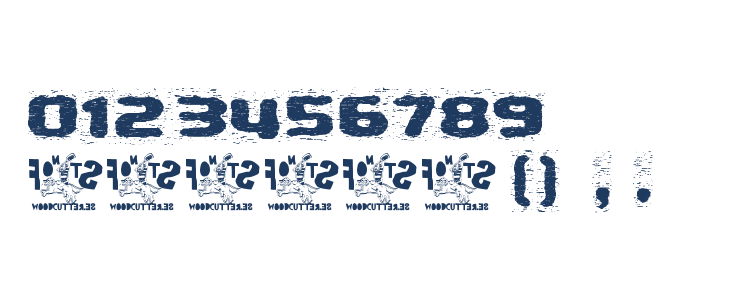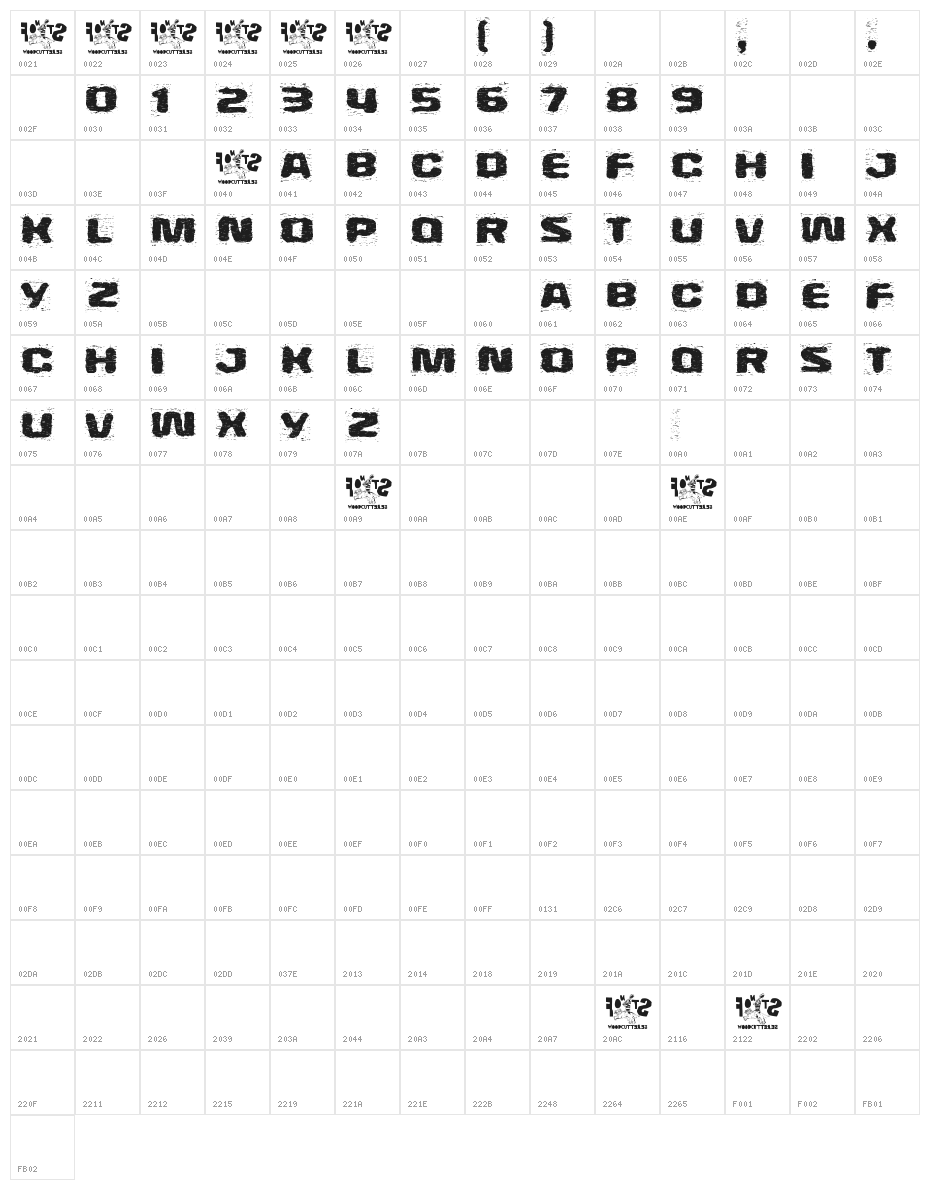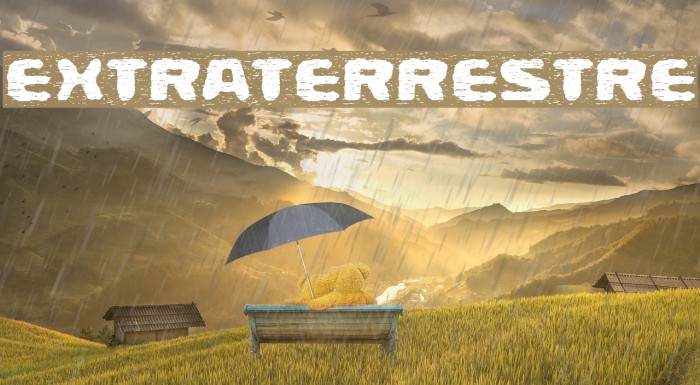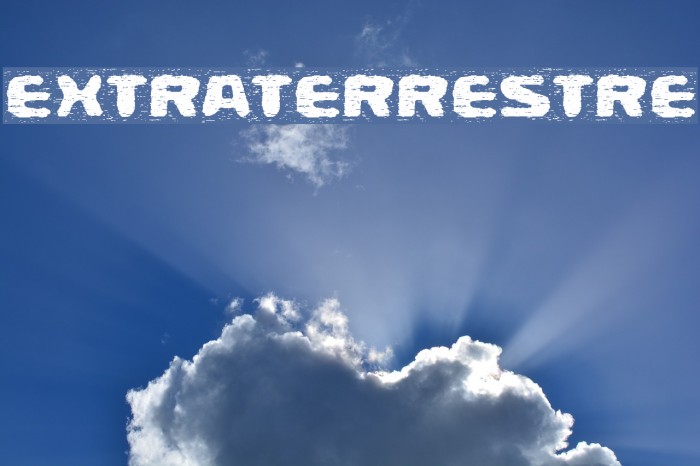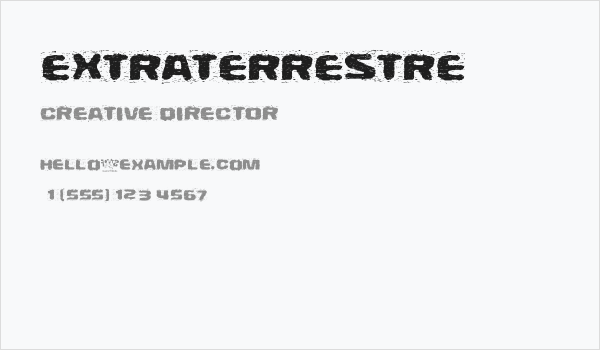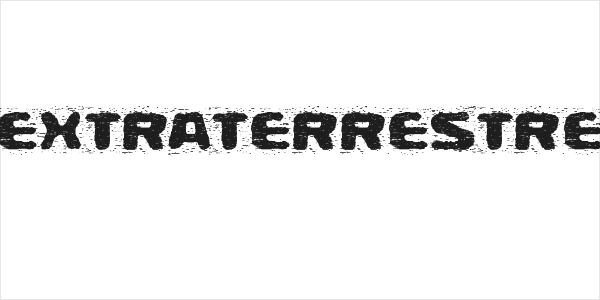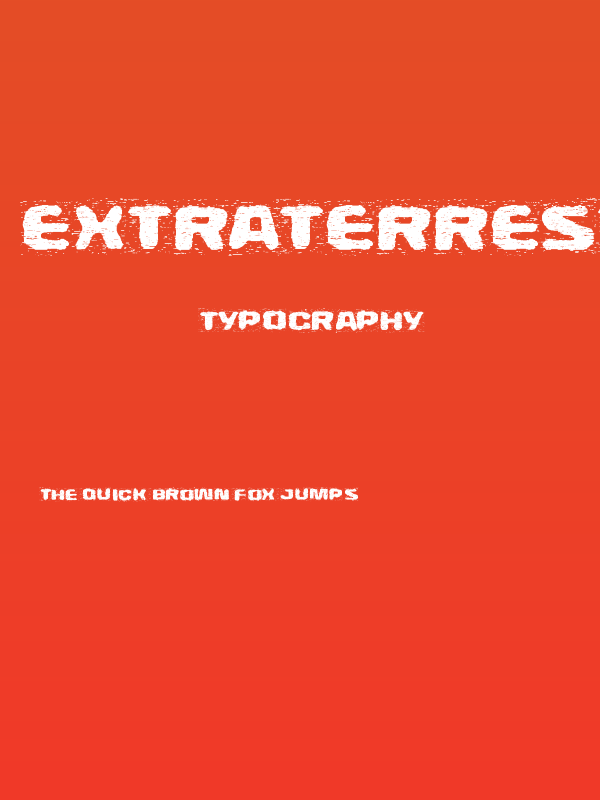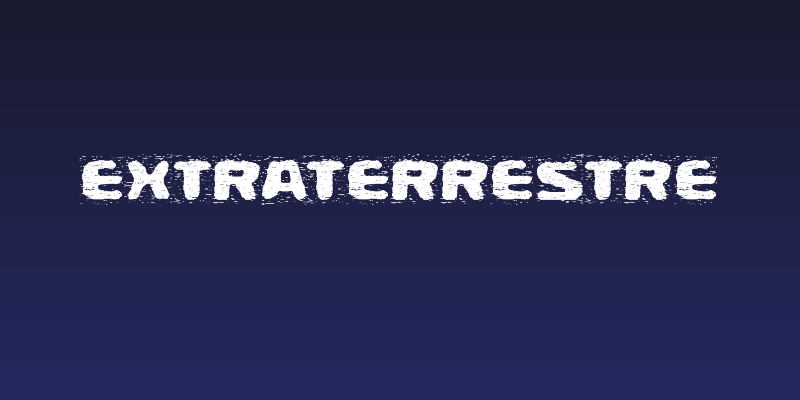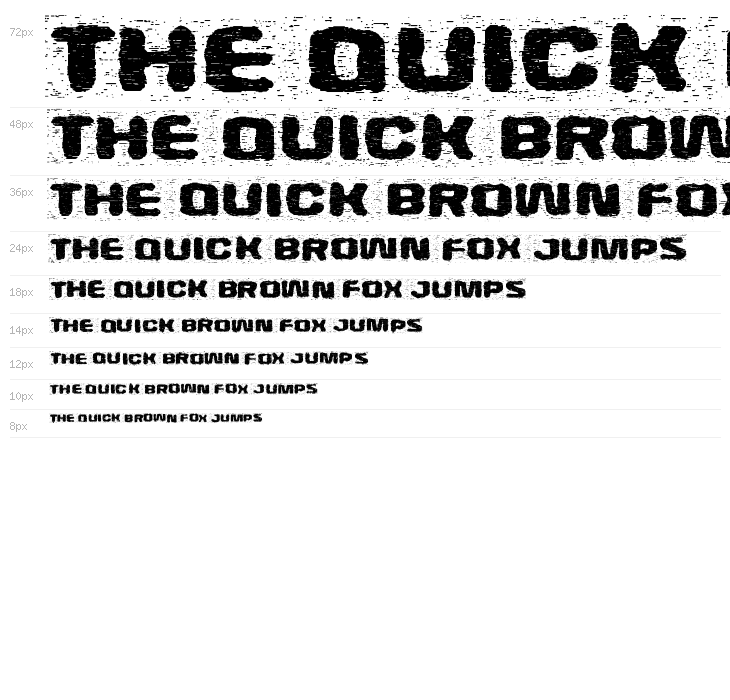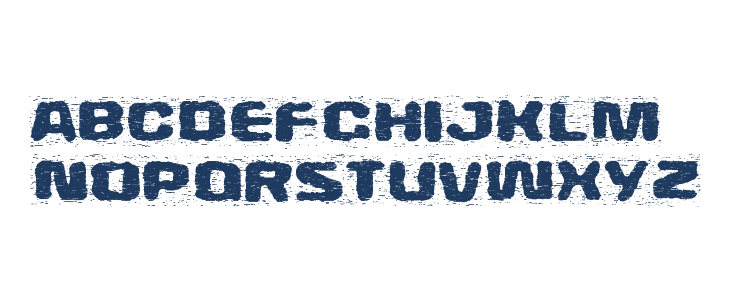
Extraterrestre Font
Extraterrestre Description
This font features a bold, distressed style with a textured appearance that gives it a rugged and worn look. The characters are thick and blocky, with irregular edges that create a sense of movement and energy. The uppercase and lowercase letters maintain a consistent width, while the numbers and special characters follow the same design aesthetic, ensuring uniformity across all elements. The font's unique style makes it stand out, offering a gritty and industrial feel that can add character to any design project.
| Overall Style | Industrial, Grunge |
| Proposed Projects | Ideal for projects requiring a strong, impactful look, such as posters, album covers, or branding for edgy or alternative products. |